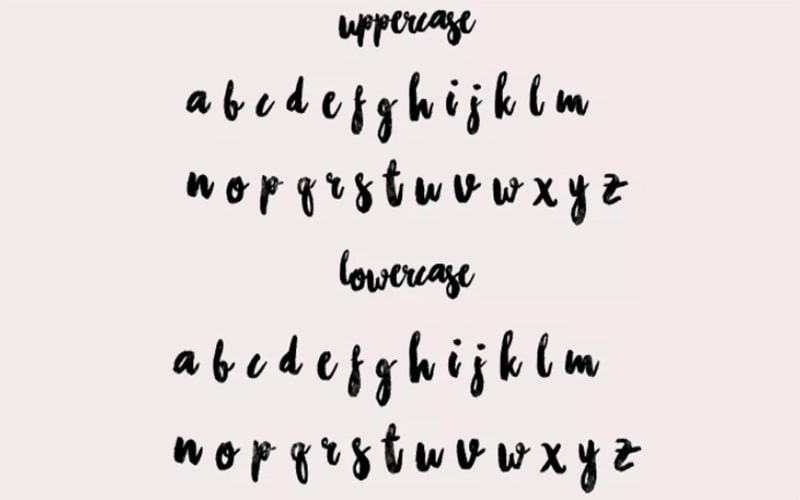
Chasing Embers Font is a beautiful script, brush typeface family. This font was designed and published by The Branded Quotes. Its soft curls corners look awesome and elegant which makes your message unique.
This script font family can be found in only one style. This font is a round brush typeface that works well for a great show typographic. Regularly using weights for big titles seems especially enjoyable.
This stunning calligraphy font is ideal for many purposes such as creating a good or attractive logo, and wedding designs. invitation, stationery, social media posters, advertisements, and product packaging.
and It will also be used to make excellent images, text with various types of colors, and more with great typography by using this font. Based on this, we consider it the best font that can suit any type of stylish design.
Chasing Embers Font
The handwritten font can be easily used for large text and desktops. Due to its shape, this font is attractive and wide. This round font will draw the audience’s attention to your titles and highlights.
It looks unusual on the internet as a heading font. This is a round font designed according to street vibe art. Use it for sectional design and it will highlight your titles.